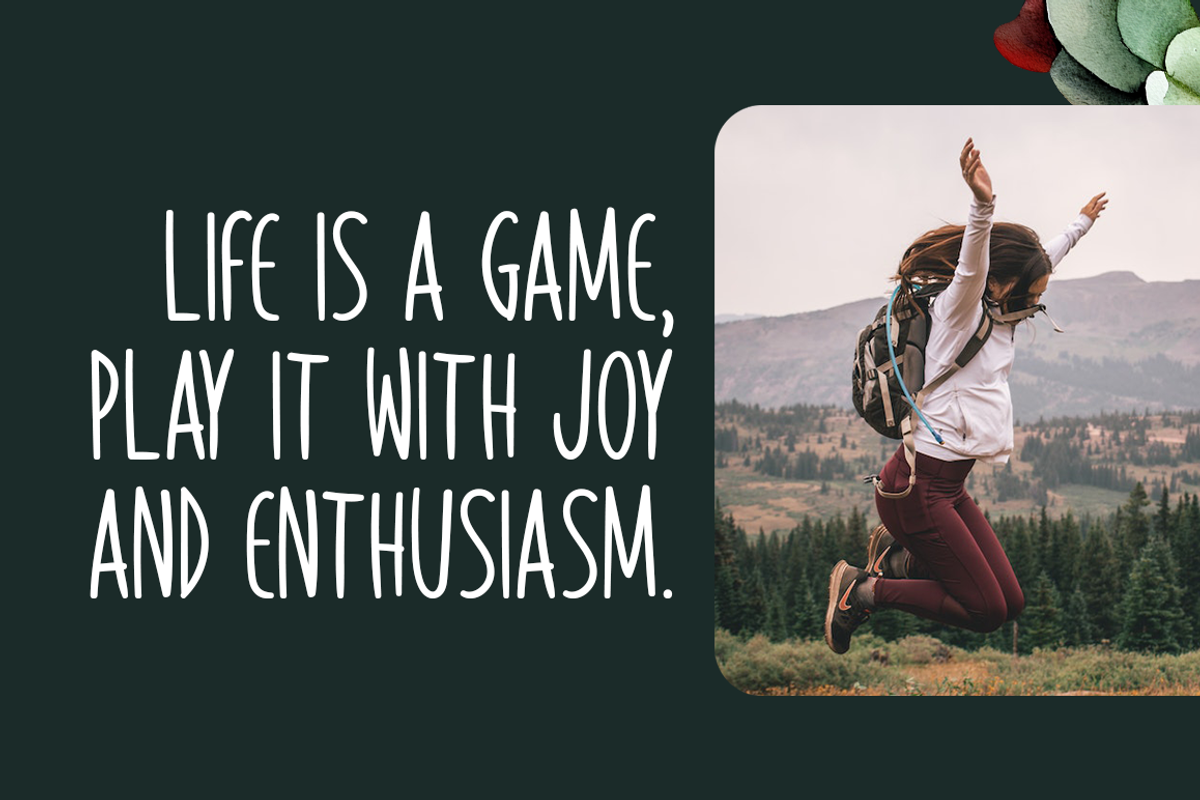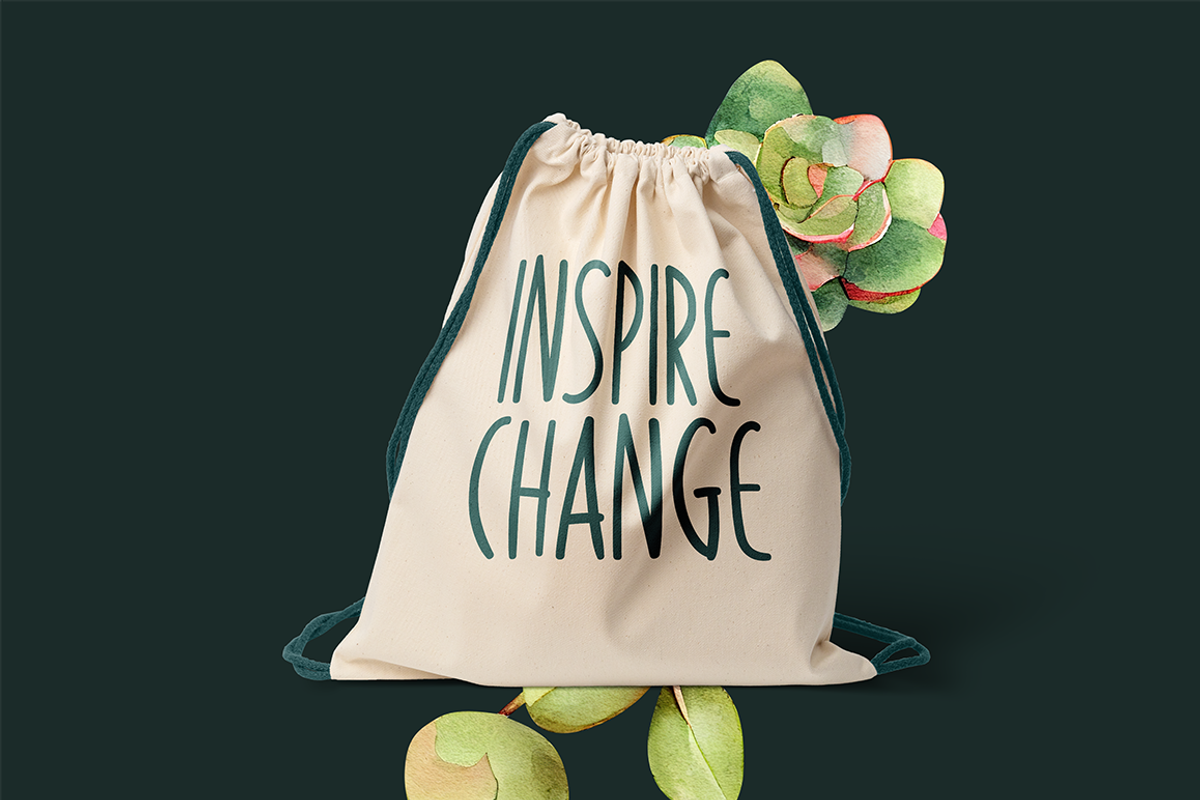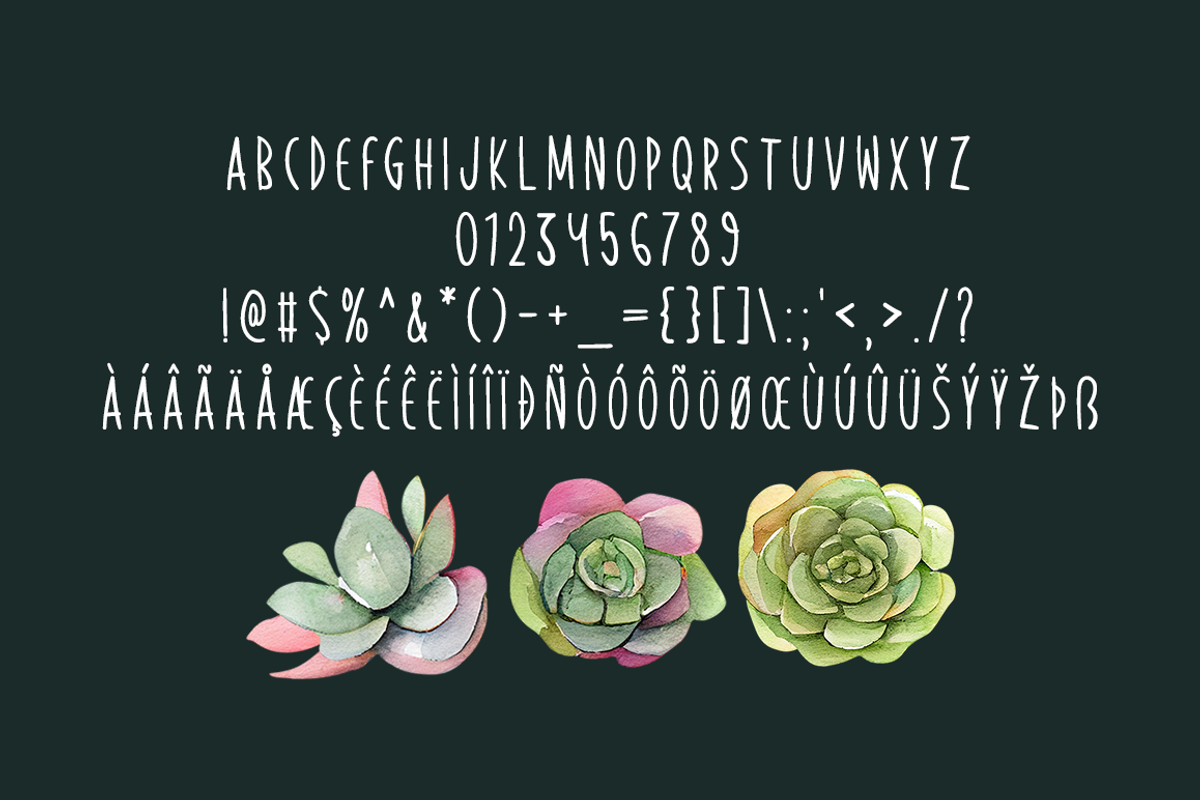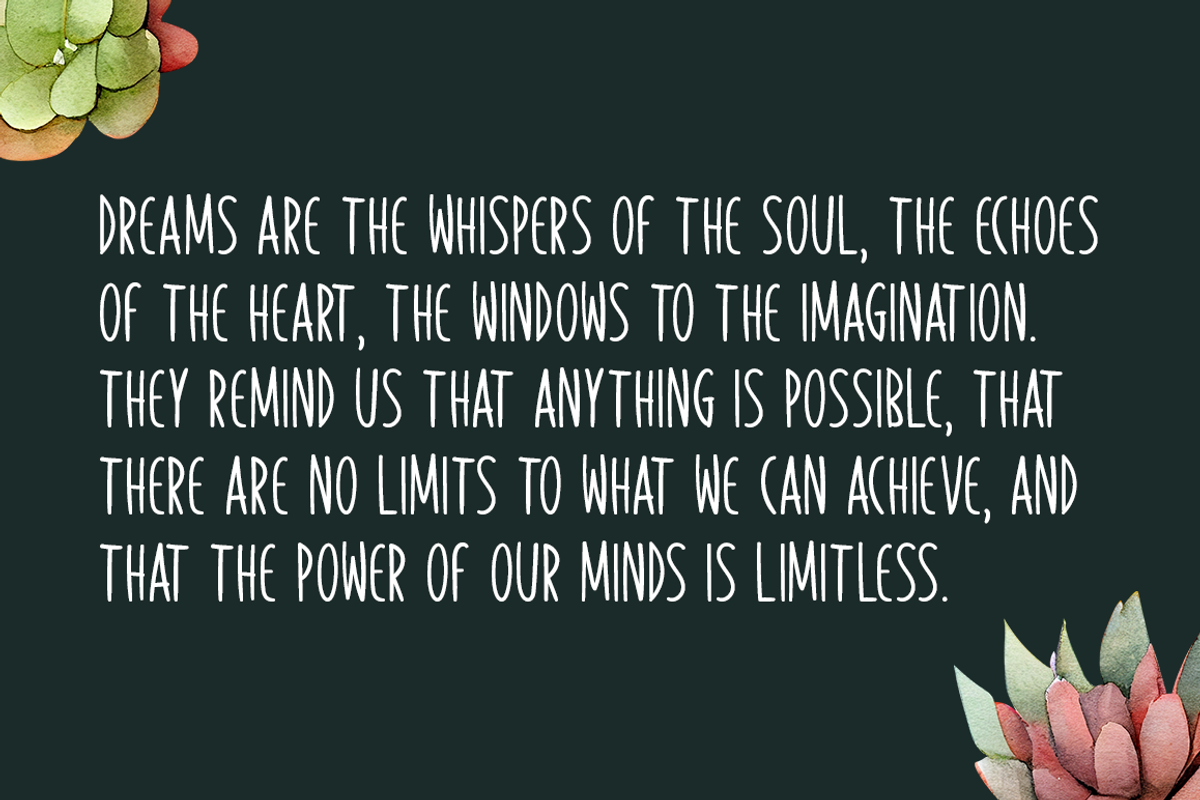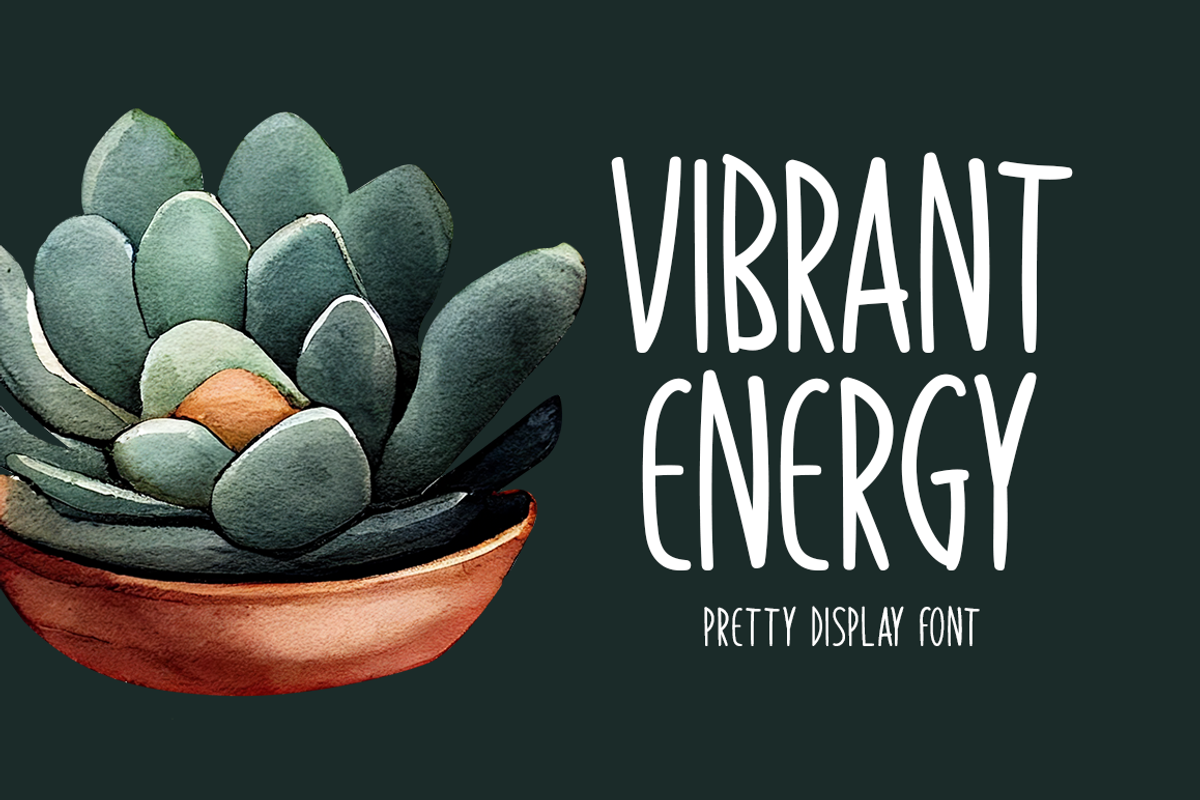
Vibrant Energy Typeface
Introducing Vibrant Energy!
Vibrant Energy is a striking display font. It can easily be matched to an incredibly large set of projects, so add it to your creative ideas and notice how it makes them stand out!
Includes a range of multilingual support